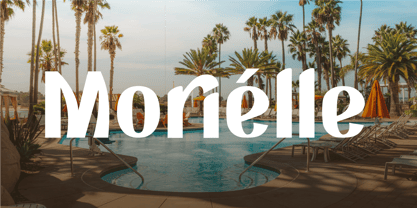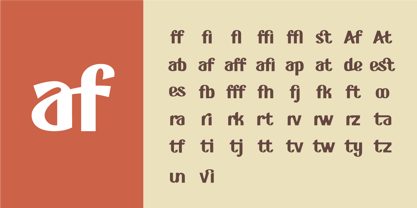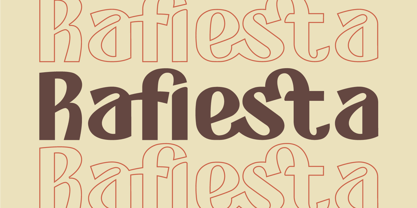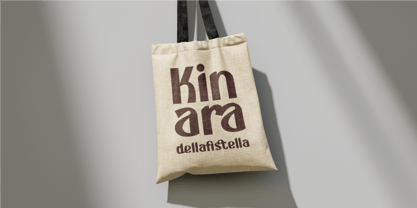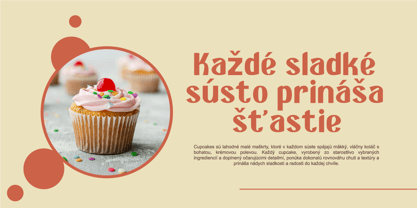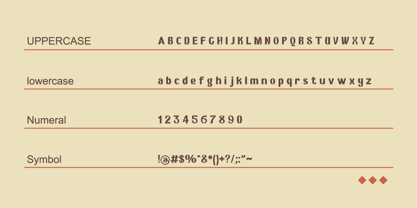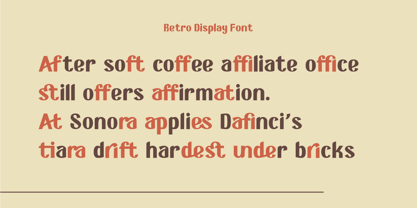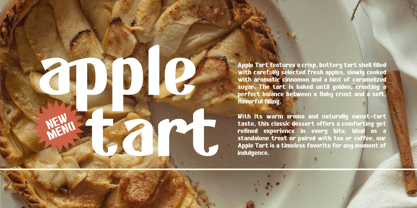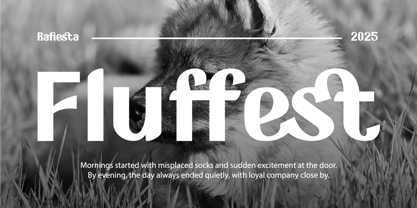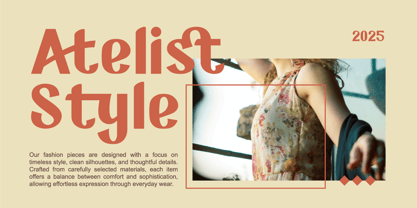
Rafiesta
Rafiesta is a warm retro display typeface inspired by mid-century editorial design, classic print advertising, and handcrafted café signage. Its letterforms feature generous curves, soft terminals, and subtly modulated strokes, creating an inviting and expressive rhythm. The balance between rounded counters and confident verticals gives Rafiesta a friendly personality while maintaining visual authority. A key strength lies in its distinctive ligature system, which is integral to its typographic voice rather than merely decorative. Three-letter ligatures such as est, aff, and afi introduce a sophisticated level of typographic elegance, creating fluid connections that enhance word texture and elevate logotypes, headlines, and branding compositions. These multi-character ligatures feel organic and intentional, reinforcing the handcrafted impression without sacrificing clarity. Two-letter ligatures like de, at, and ab are uniquely drawn with custom joins and proportions, producing smoother transitions and a cohesive flow that feels natural in both short phrases and extended display text. The generous x-height improves legibility, while accented characters are harmonized for consistency across multilingual use. Rafiesta conveys warmth, nostalgia, and craftsmanship, evoking the charm of vintage print culture with a contemporary finish. Its combination of expressive curves, thoughtful spacing, and advanced ligature design makes it an exceptional display typeface for branding, packaging, editorial titles, menus, and storytelling-driven visual identities.